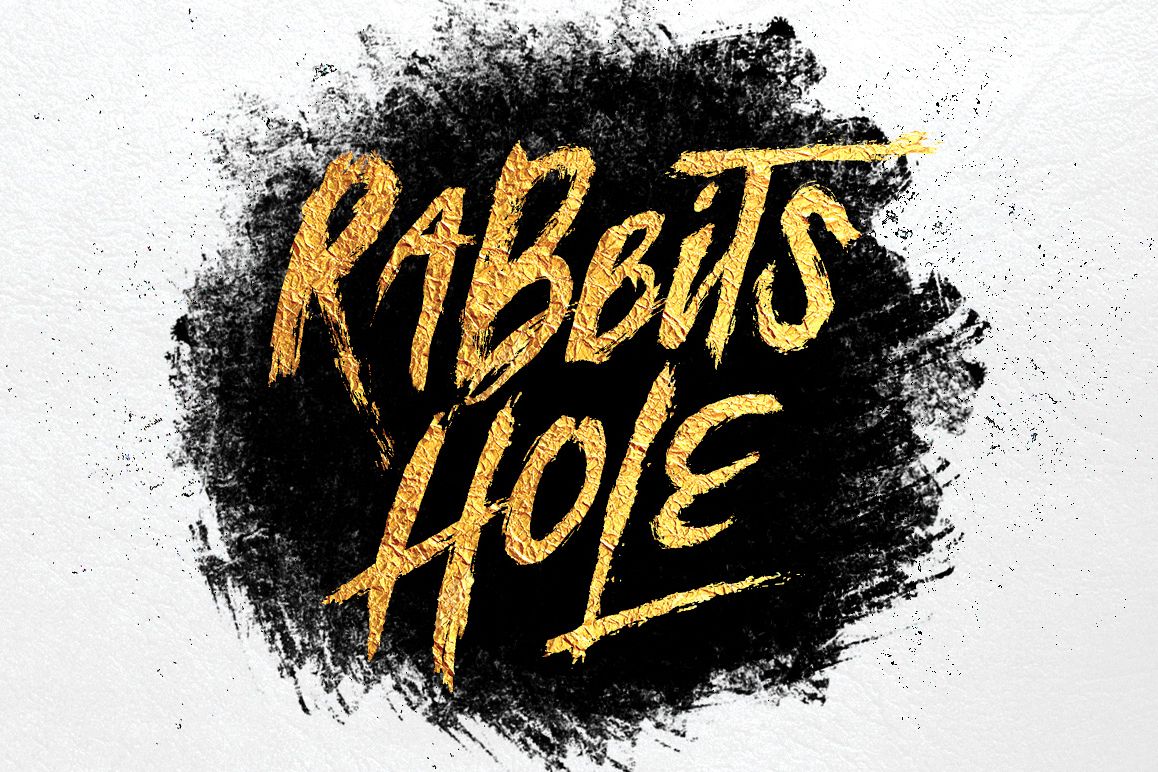
Rabbits Hole Typeface
by Maulana Creative
Give your designs an authentic brush handcrafted feel. "Rabbits Hole" is perfectly suited to stationery, logos and much more.
Stylistic Alternates